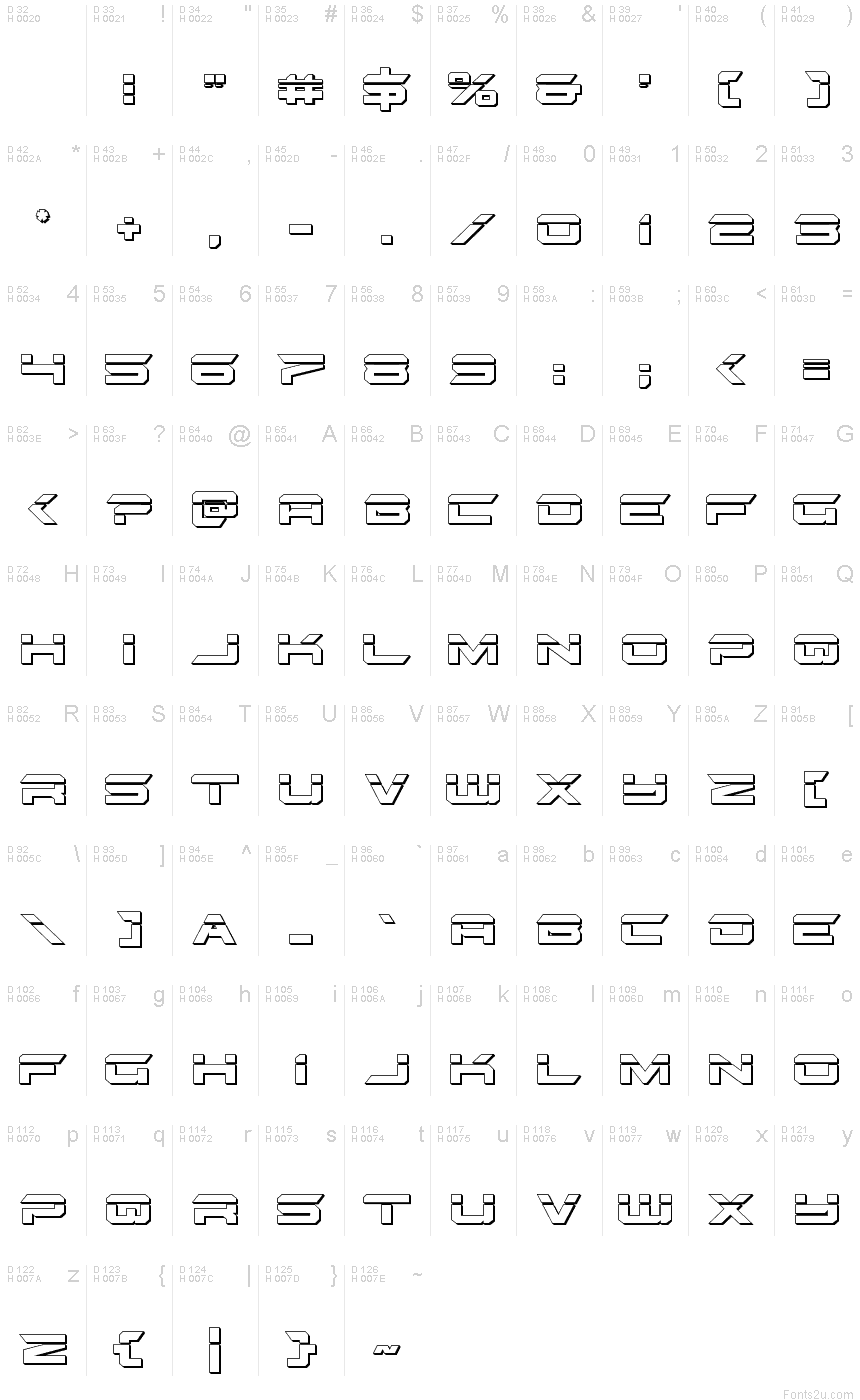
Gypsy Killer Bullet by Iconian Fonts is a free futuristic 3D display font with broad mechanical capitals and sharply beveled edges. Its hollow faces, oversized horizontal bars, and clipped corners give the lettering the look of plated machinery. The forms are wide and assertive.
As a ready-made sci-fi title treatment, it suits game interfaces, film posters, and electronic music artwork because the open interiors resemble technical panels. Magazine covers and entertainment publishing can use its long angular silhouettes as part of a broader industrial spacecraft or robotics theme rather than neutral typography.